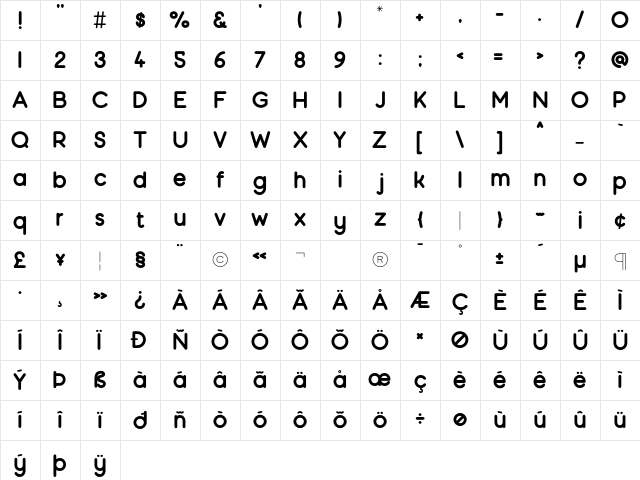
Moon 2.0 Bold Free Font
Moon 2.0 Bold
Designer: Jack Harvatt
Design Context for Moon 2.0
Moon 2.0 is a composed and adaptable typeface that performs quietly and consistently across a wide range of design contexts. Its bold stroke weight gives it real presence on the page.